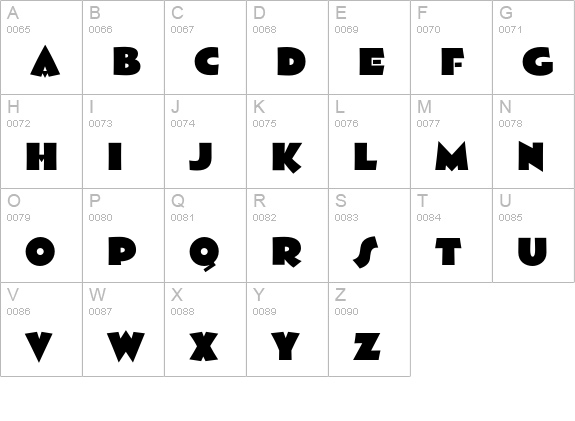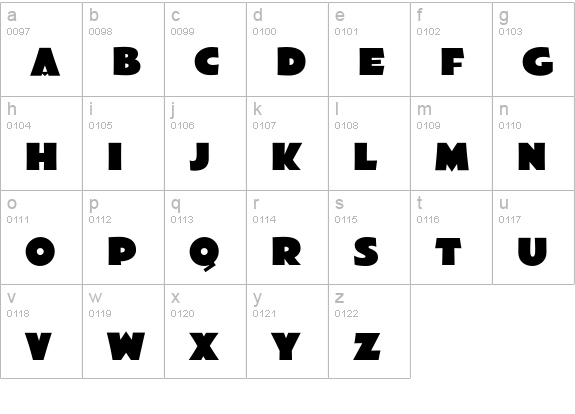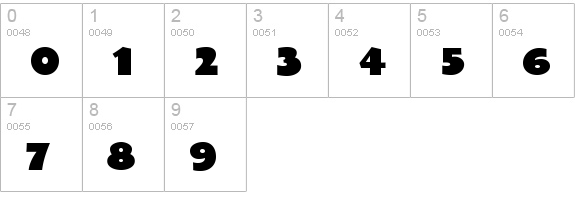
PosterBlack Font Details
PosterBlack is a bold and impactful display font that commands attention with its strong presence and modern aesthetic. With its thick strokes and sharp angles, this typeface is perfect for creating eye-catching headlines, posters, and signage that make a statement. The versatility of PosterBlack allows it to be used in a variety of design projects, from branding to editorial design, making it a must-have in any designer's toolkit. And the best part? PosterBlack is available for free download at FontsMarket.com. Now you can add this striking font to your collection without any cost, allowing you to unleash your creativity and bring your designs to the next level. Don't miss out on this opportunity to elevate your typography game with PosterBlack!